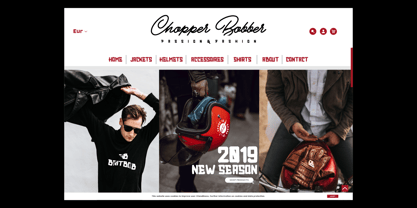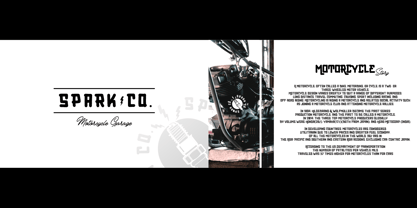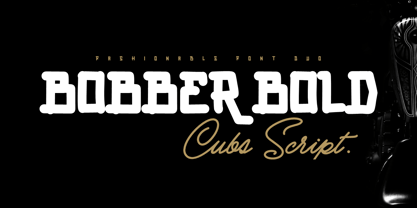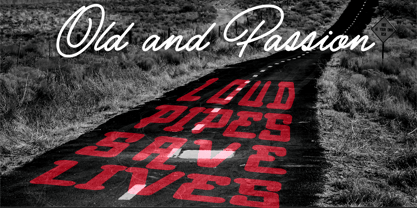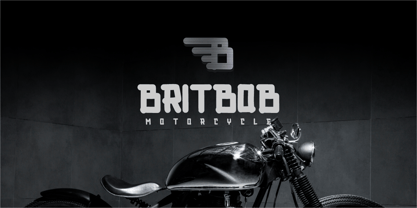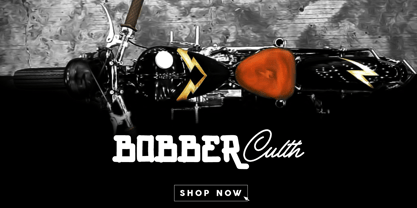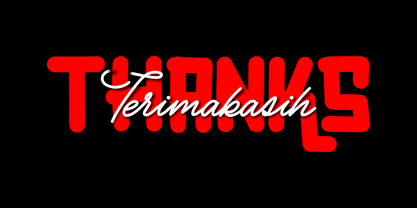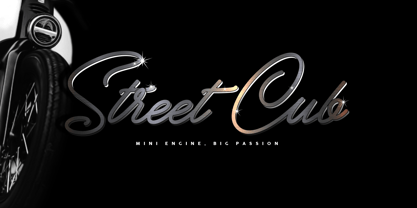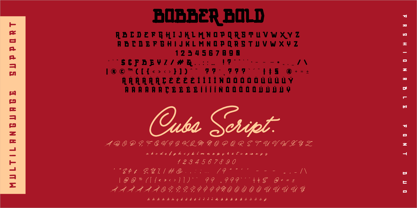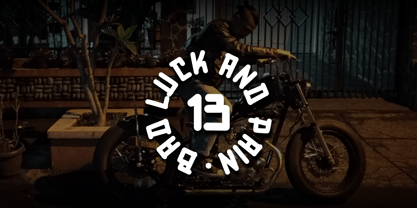
Bobber Bold & Cubs Script
The Bobber Bold & Cubs Script Font Family was designed by Inu Mocca and published by Inumocca. Bobber Bold & Cubs Script contains 2 styles and family package options. More about this family
BOBBER BOLD & Cubs Script when you see all glyphs of BOBBER BOLD, its really like a rear wheel Bobber style, thick, filled and powerfull, combine with Cubs Script, really eyescathing, Modern and fresh, very supportive for you needs, make somethink different can into all genre in society now. not only writing, but giving character to writing, which will be able to give a different impression. BOBBER BOLD And Cubs Script its all handlettering by me -Unique glyphs -Multilingual Characters -UPPERCASE -Lowercase -Numeric -Symbol -Punctuation Character inumocca type